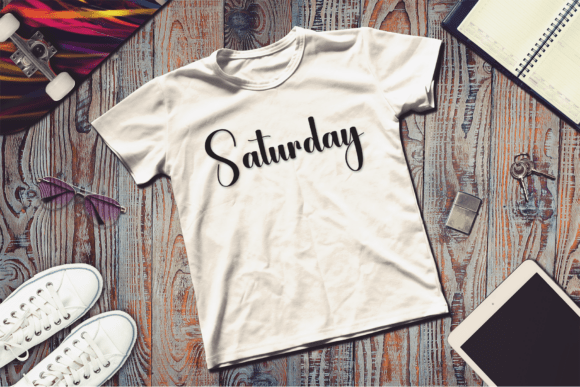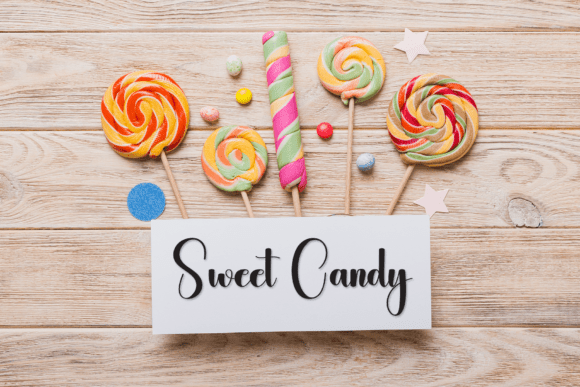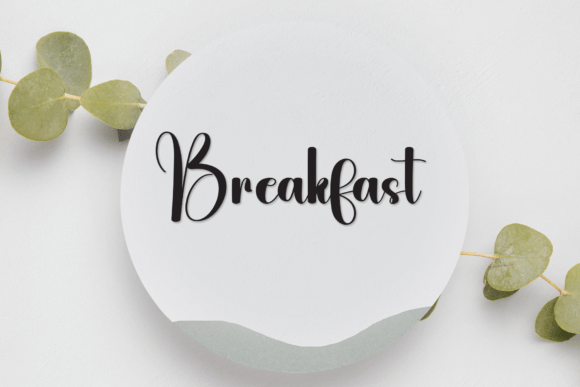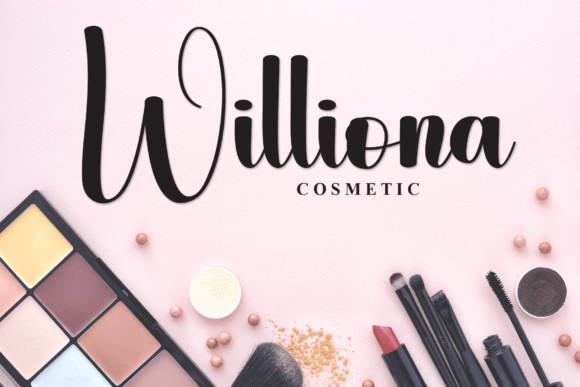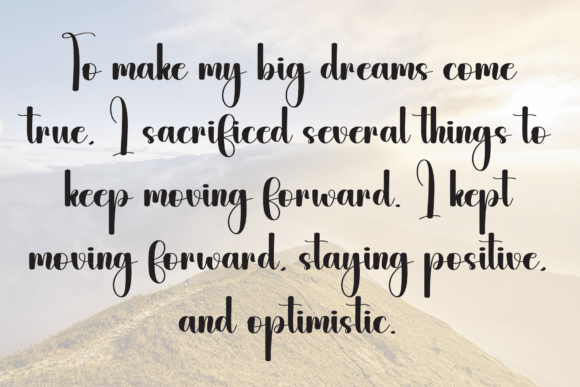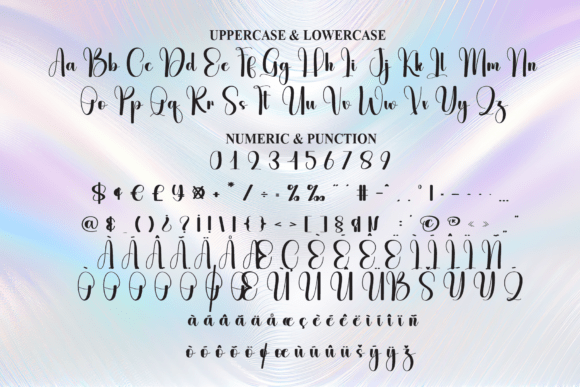
Introducing Antique Hologram Font: A Charming Handwritten Display Font
Are you looking for a font that can add a touch of warmth and elegance to your designs? Look no further than the Antique Hologram Font, a beautiful handwritten display font that exudes sweetness and friendliness. With its adorable and lively nature, this font is perfect for crafting elegant wedding invitations, heartfelt cards, or any design that desires to bring a dash of fun!
A Unique and Playful Charm
The Antique Hologram Font is designed to add a unique, playful charm to your creative pursuits. Its handwritten style gives it a personal and intimate feel, making it perfect for designs that require a touch of warmth and personality. Whether you’re a designer, crafty DIY enthusiast, or simply someone who loves to create, this font is sure to inspire you to create something truly special.
Perfect for Elegant Wedding Invitations and Heartfelt Cards
One of the standout features of the Antique Hologram Font is its ability to add a touch of elegance and sophistication to any design. Its classic and timeless style makes it perfect for wedding invitations, save-the-date cards, and other formal events. The font’s playful and whimsical nature also makes it ideal for creating heartfelt cards and other personal correspondence.
Bring a Dash of Fun to Your Designs
The Antique Hologram Font is not just limited to formal events and designs. Its playful and lively nature makes it perfect for adding a dash of fun to any project. Whether you’re creating a children’s party invitation, a DIY craft project, or simply a social media graphic, this font is sure to bring a smile to people’s faces.
Key Features of the Antique Hologram Font
- Handwritten display font with a warm and charming feel
- Perfect for elegant wedding invitations, heartfelt cards, and other formal events
- Playful and whimsical nature makes it ideal for adding a dash of fun to any design
- Unique and playful charm that adds a personal touch to any project
- Classic and timeless style that never goes out of fashion
Why Choose the Antique Hologram Font?
So why choose the Antique Hologram Font over other fonts on the market? Here are just a few reasons:
- Unique style: The Antique Hologram Font has a unique and distinctive style that sets it apart from other fonts.
- Easy to read: Despite its playful nature, the font is easy to read and understand, making it perfect for a wide range of designs.
- Versatile: The font can be used for a wide range of designs, from formal events to DIY craft projects.
Tips and Tricks for Getting the Most Out of the Antique Hologram Font
Here are a few tips and tricks for getting the most out of the Antique Hologram Font:
- Experiment with different sizes and colors: The font looks great in a variety of sizes and colors, so don’t be afraid to experiment and find the perfect combination for your design.
- Pair with other fonts: The Antique Hologram Font pairs well with other fonts, so try combining it with a sans-serif font for a unique and interesting look.
- Use it for headlines and titles: The font is perfect for headlines and titles, but you can also use it for body text for a more playful look.
The Antique Hologram Font is a beautiful and versatile font that is perfect for designers, crafty DIY enthusiasts, and anyone who loves to create. With its warm and charming feel, playful and whimsical nature, and classic and timeless style, this font is sure to add a unique and playful charm to any design. So why wait? Download the Antique Hologram Font today and start creating something truly special!